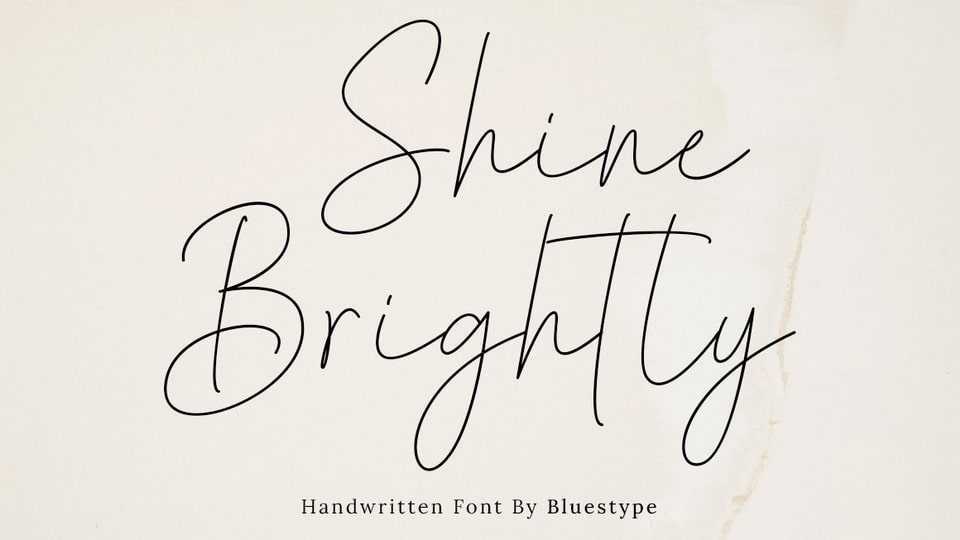
Download Shine Brightly font, a signature and handwriting-themed font exuding elegance and beauty. With its graceful strokes and exquisite letterforms, this font captures the essence of refined penmanship.